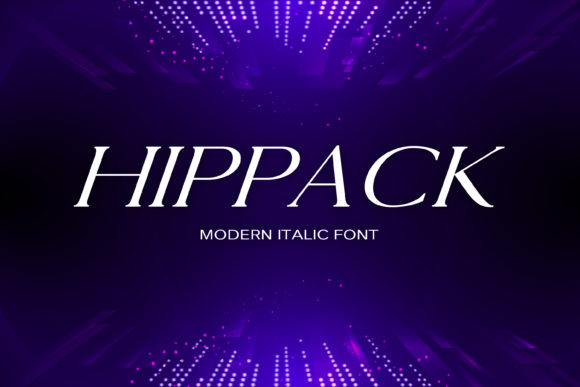
Hippack Font: A Modern Twist on Traditional Sign Painting
In the world of typography, fonts play a crucial role in conveying messages, expressing creativity, and building brand identities. With the ever-evolving landscape of design, it’s essential to stay ahead of the curve with fresh and innovative fonts. One such font that has caught the attention of designers and typography enthusiasts is Hippack Font. In this article, we’ll dive into the world of Hippack, exploring its unique features, inspirations, and uses.
What is Hippack Font?
Hippack Font is a clean and smart display font that draws inspiration from traditional sign painting, infused with a modern twist. Its super clean and dynamic design makes it an ideal choice for various modern design needs. Whether you’re a designer, entrepreneur, or artist, Hippack Font offers a versatile and stylish solution for your typography requirements.
The Inspiration Behind Hippack Font
Hippack Font finds its roots in traditional sign painting, a timeless craft that has been used to create eye-catching signs and advertisements for centuries. The font’s creator aimed to capture the essence of this classic art form and merge it with modern design sensibilities. The result is a font that exudes a sense of nostalgia while feeling fresh and contemporary.
Traditional sign painting is known for its bold, vibrant, and expressive lettering styles. Sign painters use a range of techniques, including brush strokes, flourishes, and ornamentation, to create visually striking signs that grab attention. Hippack Font takes these core elements and refines them, creating a font that is both elegant and edgy.
Key Features of Hippack Font
Hippack Font boasts several key features that make it an attractive choice for designers and non-designers alike:
• Clean and Dynamic Design: Hippack Font features a clean and dynamic design, making it perfect for headlines, titles, and short paragraphs of text.
• Modern Twist: The font’s modern twist sets it apart from traditional sign painting-inspired fonts, giving it a fresh and contemporary feel.
• Versatility: Hippack Font is highly versatile and can be used for a wide range of design projects, from branding and logos to business cards and t-shirts.
• Legibility: The font’s clear and legible design ensures that your message is conveyed effectively, even at smaller font sizes.
How to Use Hippack Font
Hippack Font is an incredibly versatile font that can be used in various design projects. Here are some ideas to get you started:
• Branding and Logos: Use Hippack Font to create bold and eye-catching logos that make a lasting impression.
• Headlines and Titles: The font’s dynamic design makes it perfect for headlines, titles, and short paragraphs of text.
• Business Cards: Add a touch of elegance and sophistication to your business cards with Hippack Font.
• T-Shirts and Merchandise: Create stylish and eye-catching designs for t-shirts, hoodies, and other merchandise using Hippack Font.
Tips and Tricks for Using Hippack Font
To get the most out of Hippack Font, here are some tips and tricks to keep in mind:
• Experiment with Font Sizes: Hippack Font looks great at various font sizes, so don’t be afraid to experiment and find the perfect size for your design.
• Play with Colors: The font’s clean design makes it easy to pair with a wide range of colors, so try out different color combinations to find the one that works best for your design.
• Use it for Display Text: Hippack Font is perfect for display text, such as headlines, titles, and short paragraphs of text.
Pairing Hippack Font with Other Fonts
Pairing Hippack Font with other fonts can create visually striking and harmonious designs. Here are some font pairing suggestions:
• Open Sans: Pair Hippack Font with Open Sans for a clean and modern look.
• Lato: Combine Hippack Font with Lato for a bold and elegant design.
• Merriweather: Pair Hippack Font with Merriweather for a classic and sophisticated look.
Hippack Font is a versatile and stylish font that offers a unique blend of traditional sign painting and modern design sensibilities. Its clean and dynamic design makes it perfect for various design projects, from branding and logos to headlines and titles. With its excellent legibility, versatility, and range of uses, Hippack Font is an excellent addition to any designer’s toolkit.